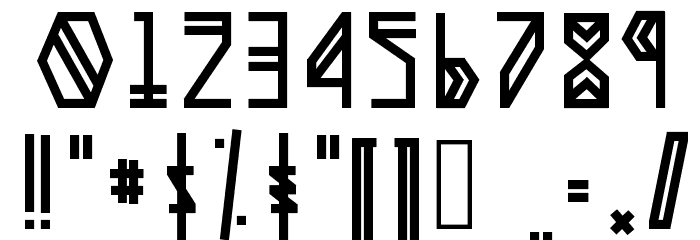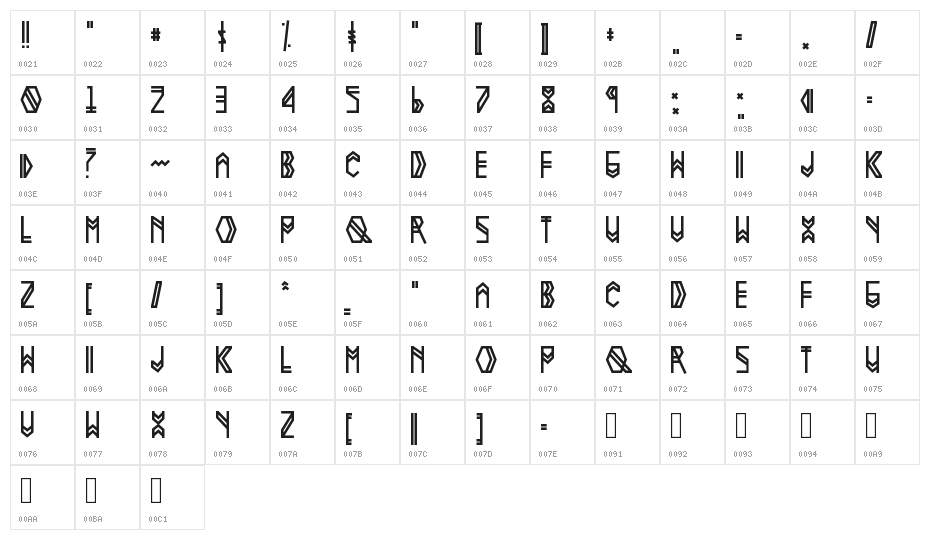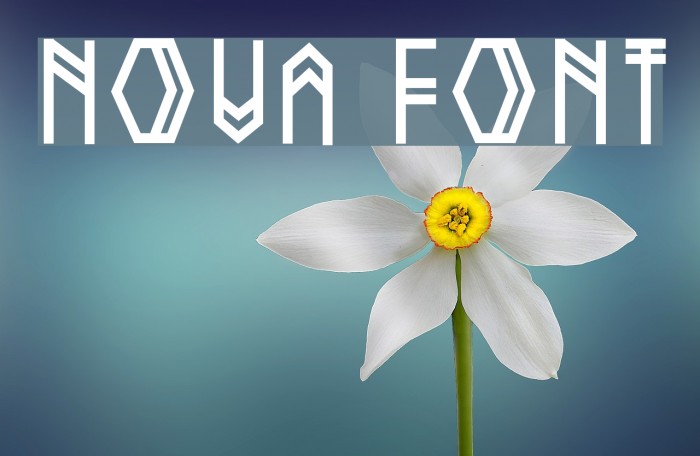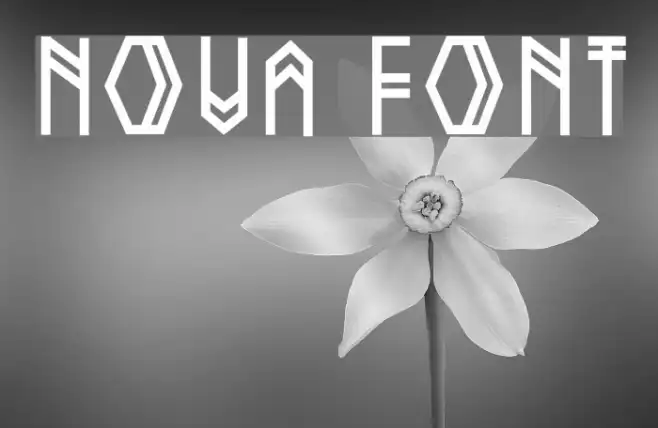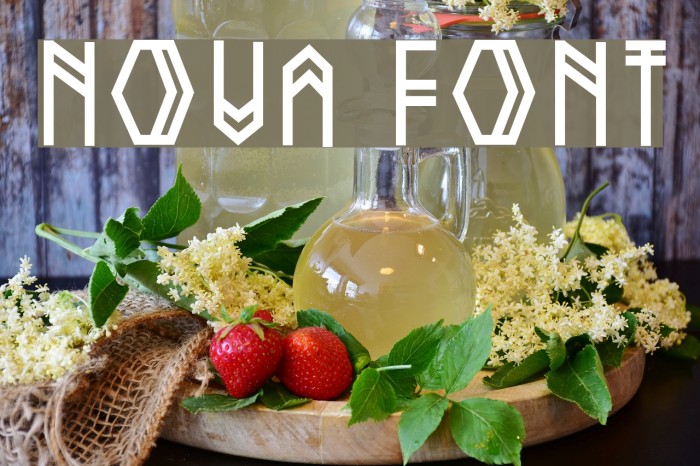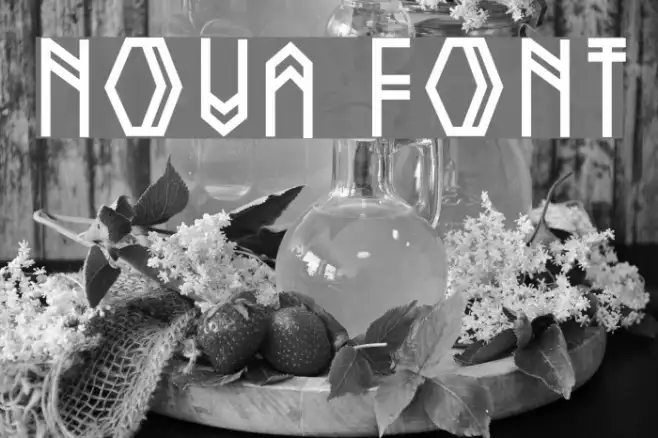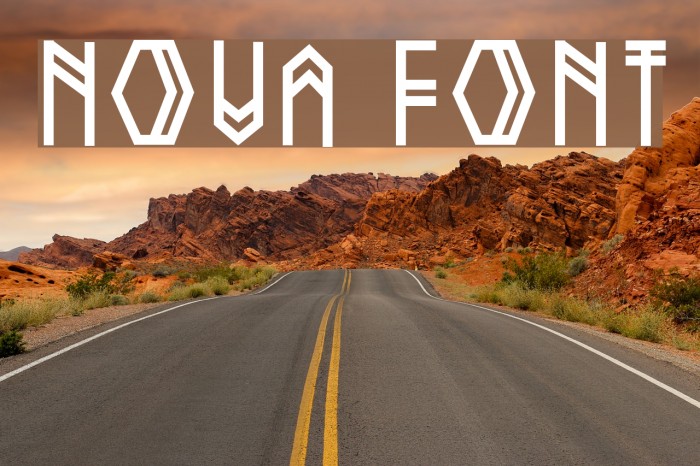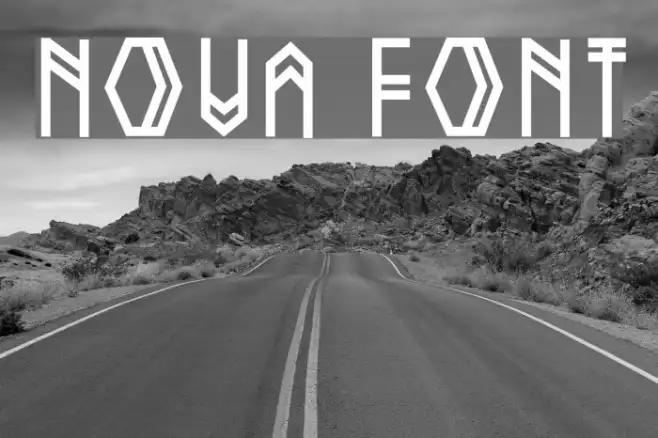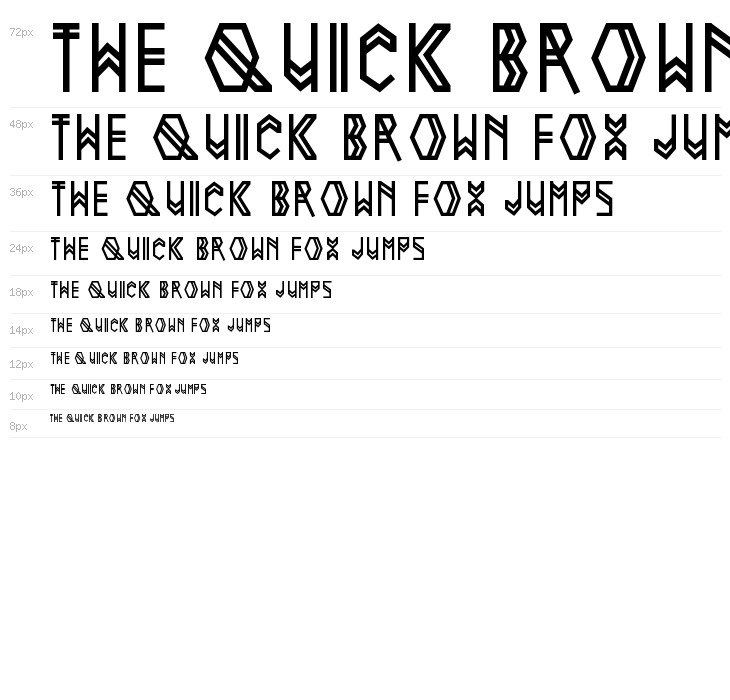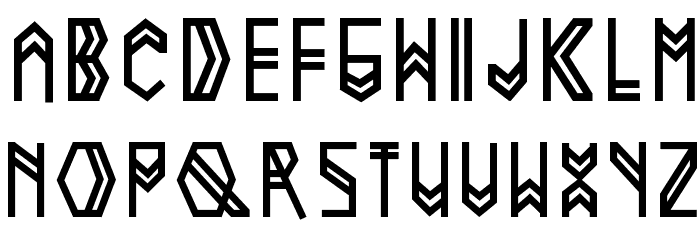
Nova Font
Nova Description
This font features a bold, geometric design with a futuristic and angular aesthetic. Each character is constructed with sharp lines and distinct angles, creating a sense of depth and dimension. The uppercase and lowercase letters maintain a consistent style, emphasizing symmetry and structure. Numbers and special characters are designed with the same geometric precision, making them stand out with their unique forms. The overall appearance is striking and modern, suitable for projects that require a bold statement.
| Proposed Projects | Ideal for sci-fi themed designs, technology branding, video game titles, and modern posters. |